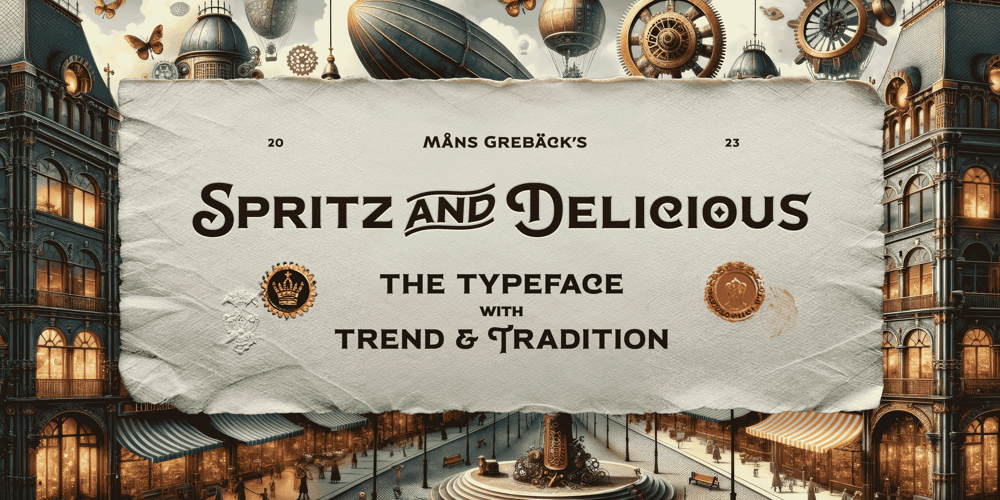
Spritz And Delicious Font Family was designed by Måns Grebäck and published by Mans Greback. Spritz And Delicious contains 4 styles and family package options. Spritz And Delicious is a modern typeface with a traditional heritage. Captivating and blending the ruggedness of a saloon’s wooden sign and the elegance of a Victorian tea room’s menu, Spritz And Delicious is a typeface where the subtle hint of serifs adds a unique flavor, a nod to its vintage inspirations. At its core it remains a robust sans-serif, maintaining a fresh, modern twist. Provided in Regular, Bold, Italic and Bold italic, this font family is as diverse as it is refined. The font is built with advanced OpenType functionality and has a guaranteed top-notch quality, containing stylistic and contextual alternates, ligatures, and more features; all to give you full control and customizability. It has extensive lingual support, covering all Latin-based languages, and includes all the characters and symbols you’ll ever need.Behind this creation is type designer Mans Greback.